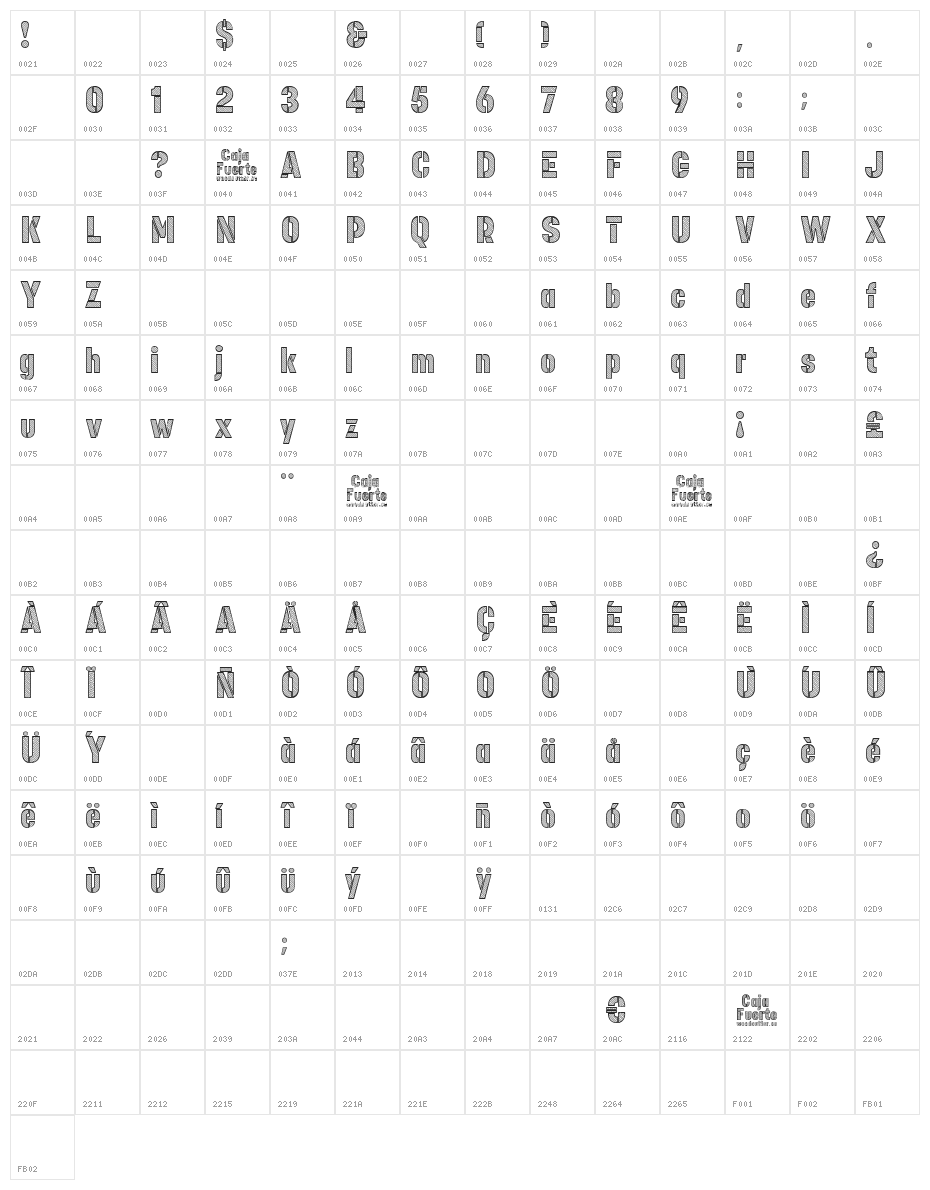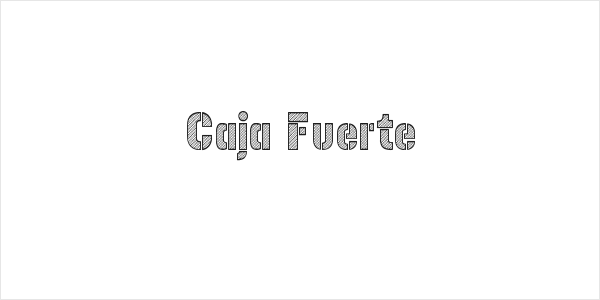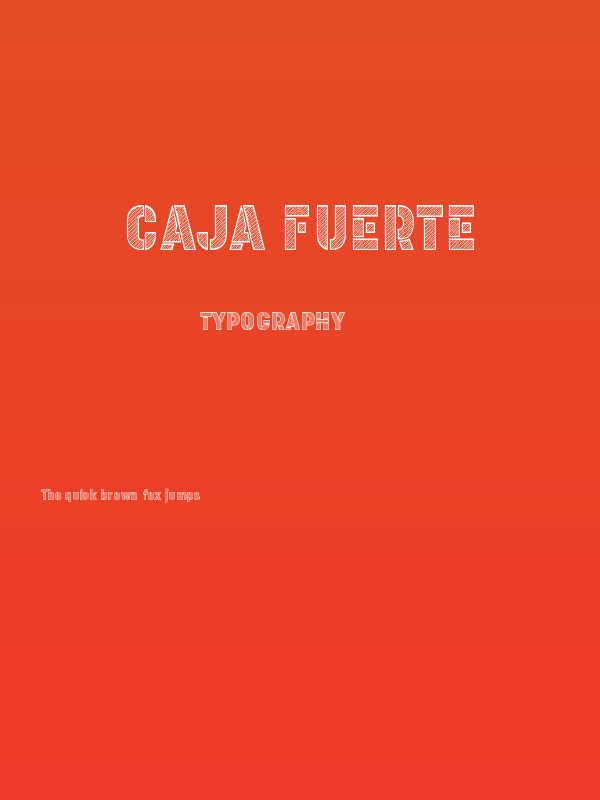
Caja Fuerte Font
Caja Fuerte Description
This font features a bold, decorative style with a unique crosshatch pattern filling each character. The uppercase and lowercase letters maintain a consistent geometric structure, giving the font a cohesive and striking appearance. The numerals and special characters are designed with the same attention to detail, ensuring uniformity across all glyphs. The font's boldness and intricate design make it stand out, ideal for projects that require a strong visual impact. Its decorative nature suggests a playful yet sophisticated aesthetic, suitable for various creative applications.
| Proposed Projects | Ideal for posters, branding, packaging, and any design that requires a bold statement. |